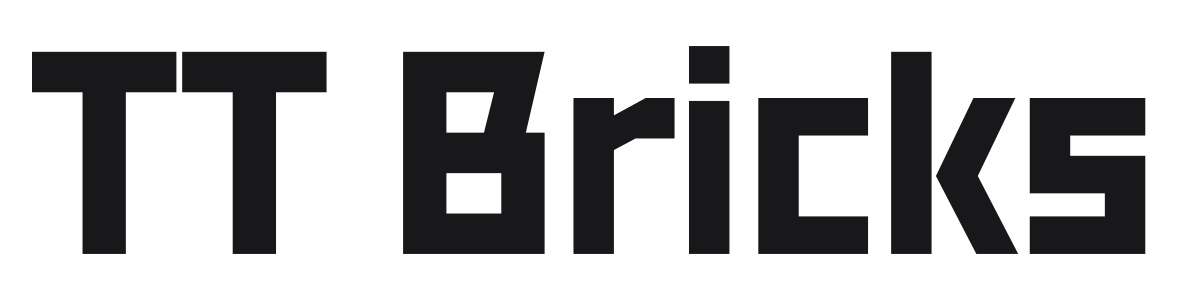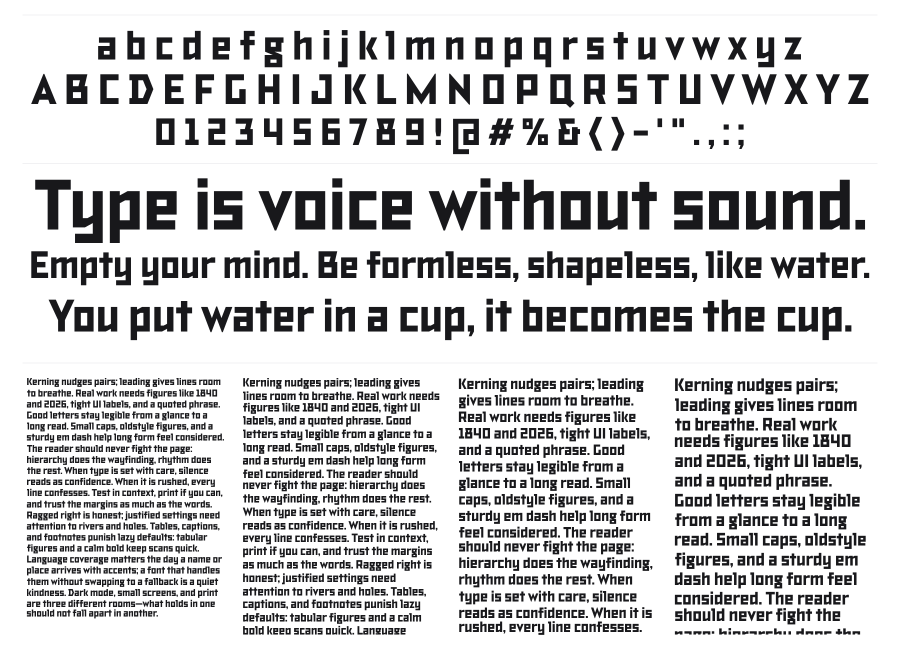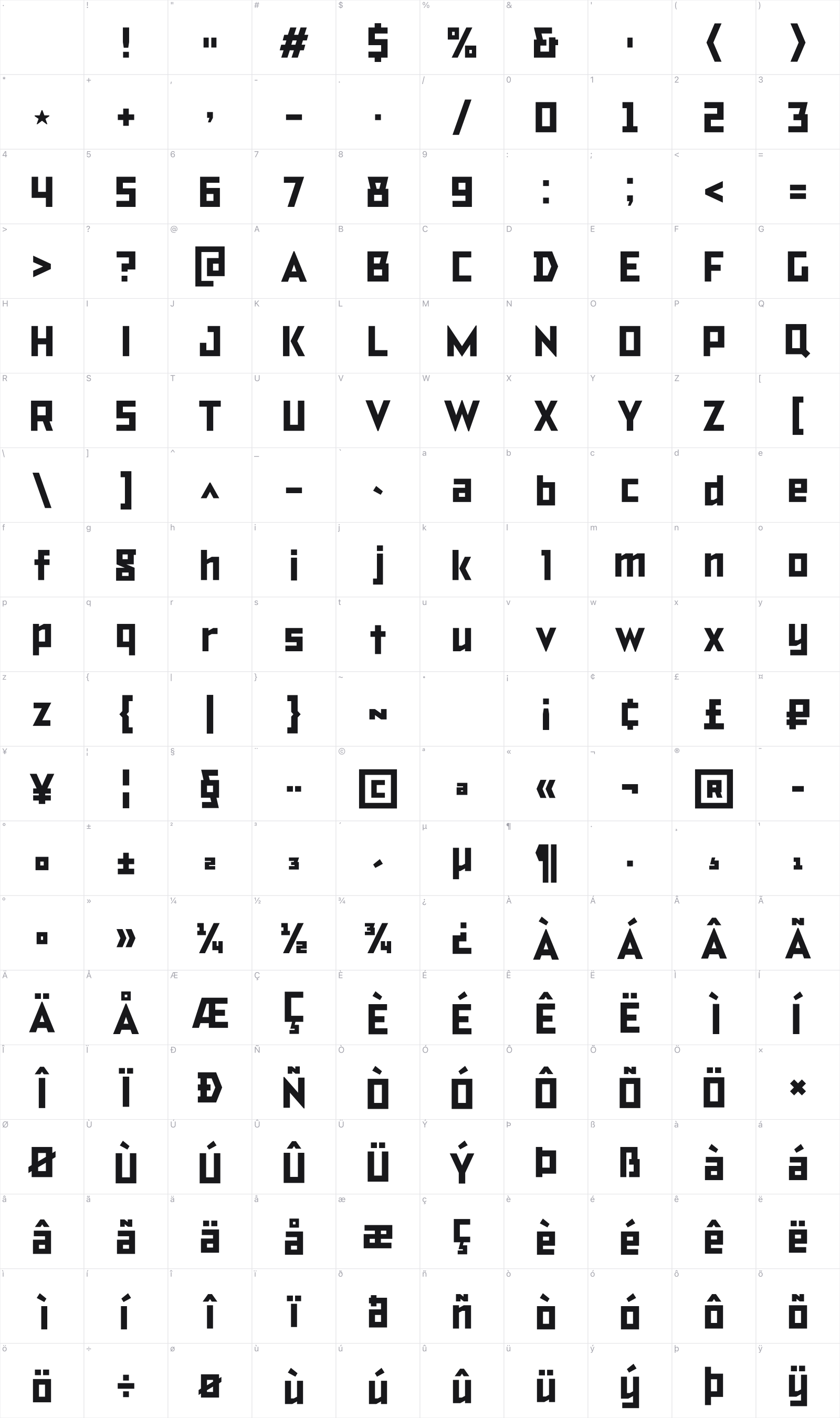
TT Bricks
TT Bricks is a heavy geometric sans built on a strict modular grid, where every character feels assembled from rectangular blocks. The squared terminals, flat angles, and near-zero stroke contrast give it a bold, architectural presence reminiscent of constructivist lettering. It hits hard at display sizes and carries a distinctly industrial edge.